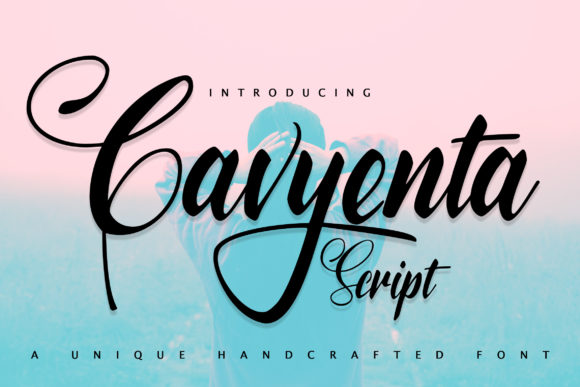
Introducing Cavyenta Font, the Quintessential Script Font for Streetwear Designs
Unleash your creativity and elevate your streetwear designs with Cavyenta Font, a masterpiece crafted by Vunira. Inspired by timeless classic calligraphy, Cavyenta exudes elegance and a contemporary vibe that will leave you spellbound.
With its masterful strokes, Cavyenta dances across your designs, capturing the essence of urban fashion. Its carefully crafted curves and impeccable form bring a touch of sophistication to your creations, making them stand out from the crowd.
Cavyenta's balanced and varied design strikes the perfect balance between thin and thick, creating visual harmony and ensuring your designs are easy to read. This font is a versatile chameleon, adapting effortlessly to various design styles, from bold and edgy to clean and minimalistic.
Whether you're creating streetwear apparel, logos, posters, or social media graphics, Cavyenta Font is your perfect companion. Its enchanting allure will captivate your audience, leaving them in awe of your designs.
- Elegant script font inspired by timeless classic calligraphy
- Contemporary atmosphere and impeccable form
- Balanced and varied design, not too thin or thick
- Perfect for streetwear designs, apparel, logos, posters, and more
- Easy to read and visually appealing
- Adapts effortlessly to various design styles